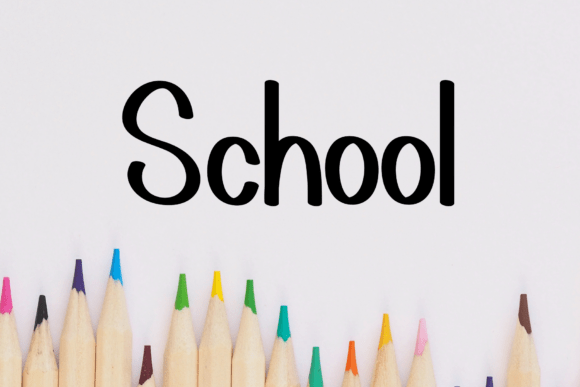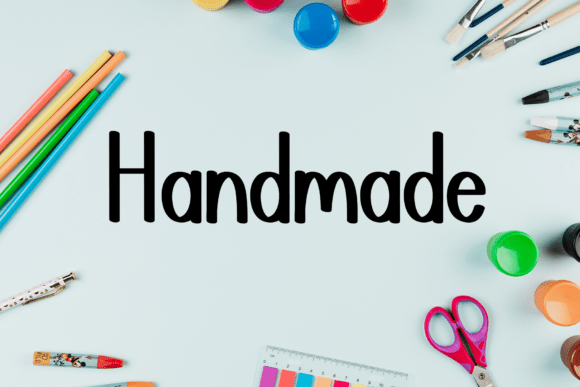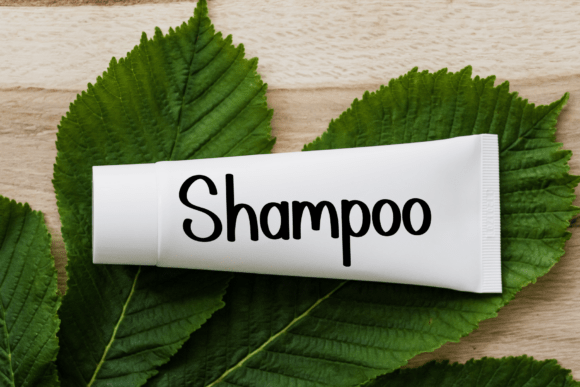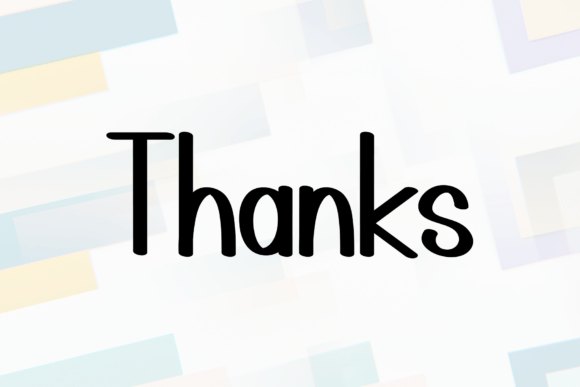
The Perfect Handwritten Touch: Beautycare Font
Have you ever found yourself scribbling down ideas in a notebook, only to realize that your handwritten notes have become the highlight of the page? There’s something special about the imperfections and character of a handwritten font that can bring a personal touch to any design project.
For designers looking to add a warm and inviting feel to their work, the Beautycare Font is the perfect solution. This beautiful handwritten font features characters that dance along the baseline, creating a sense of movement and energy. Whether you’re designing a wedding invitation, a logo, or a social media graphic, Beautycare Font is sure to add a cozy accent that will leave a lasting impression.
With its unique and charming style, the Beautycare Font is a valuable addition to any designer’s toolkit. Its versatility and expressiveness make it the perfect choice for a wide range of design projects, from elegant and sophisticated to playful and whimsical.
- Unique Characteristics: The Beautycare Font features a modern, elegant design with intricate details, making it perfect for beauty, wellness, and lifestyle-related projects.
Beautycare Font Review
Overall, I think Beautycare Font is a decent option for designers looking for a clean and modern sans-serif font. ✨ Its rounded edges and subtle curves give it a friendly feel, making it suitable for beauty and wellness-related projects.
- ✨ The font is highly legible, even at smaller sizes, making it perfect for body text.
- ✨ The font family is quite extensive, with several weights and styles available, allowing for a lot of flexibility in design.
- ✨ The font is highly customizable, with options to adjust line height, letter spacing, and other parameters.
- ⚠️ The font may not be suitable for more formal or professional projects, as it can come across as a bit too playful.
- ⚠️ The font may not work well in certain contexts, such as in small sizes or on low-resolution screens.
Overall, I think Beautycare Font is a solid choice for designers who want a clean and modern sans-serif font. While it may not be the best option for every project, it’s definitely worth considering for beauty and wellness-related designs.
Use the Beautycare Font for creative projects such as invitation designs, social media graphics, and branding materials.
Experiment with different font sizes and styles to create visual hierarchy and emphasis.
Combine the Beautycare Font with other design elements to create a unique and eye-catching look.